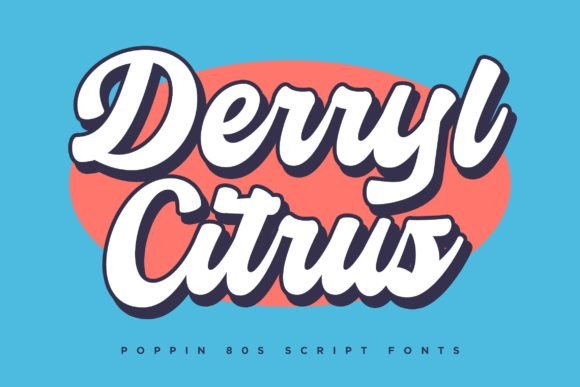
Derryl Citrus Font: The Ultimate 80s Vibe for Your Visual Time Machine
Are you looking for a font that can transport your design back to the radical 80s? Look no further than the Derryl Citrus Font, a fresh and fun typeface that’s perfect for adding a vintage touch to your visual projects. In this article, we’ll explore the features and benefits of Derryl Citrus, and show you how to use it to take your design to the next level.
The Retro Charm of Derryl Citrus
Derryl Citrus is a carefully crafted font that embodies the spirit of the 80s, with its bold, colorful, and playful aesthetic. The font’s design is inspired by classic 80s typography, with a modern twist that makes it perfect for contemporary design projects. Whether you’re creating a logo, branding materials, or social media content, Derryl Citrus is the perfect choice for adding a touch of nostalgia to your design.
Features of Derryl Citrus Font
- Unique 80s Vibe: Derryl Citrus has a distinctive 80s feel that’s perfect for creating retro-inspired designs.
- Highly Versatile: The font is suitable for a wide range of design projects, from logos and branding to social media content and apparel.
- Easily Readable: Despite its bold and playful aesthetic, Derryl Citrus is highly legible, making it perfect for use in a variety of contexts.
- Extensive Character Set: The font includes a wide range of characters, ensuring that you have everything you need to create stunning designs.
Perfect for Vintage, Retro, and Classical Designs
Derryl Citrus is a font that’s deeply rooted in the aesthetics of the 80s, making it perfect for creating vintage, retro, and classical designs. Whether you’re looking to create a logo for a food and beverage brand, design a poster for a music festival, or craft a social media post that stands out from the crowd, Derryl Citrus has got you covered.
Use Derryl Citrus for:
- Vintage and Retro Designs: Create stunning vintage-inspired designs that transport your audience back to the 80s.
- Classical and Traditional Designs: Add a touch of elegance and sophistication to your designs with Derryl Citrus’s classic aesthetic.
- Sign Painting and Apparel: Use Derryl Citrus to create eye-catching sign painting and apparel designs that are sure to turn heads.
- Food and Beverages: Add a pop of color and fun to your food and beverage branding with Derryl Citrus.
- Social Media Content: Stand out on social media with Derryl Citrus’s bold and playful aesthetic.
- Logo and Branding: Create a lasting impression with Derryl Citrus’s unique and memorable design.
- Experiment with Colors: Derryl Citrus looks amazing in bright, bold colors, so don’t be afraid to get creative with your color palette.
- Play with Typography: Derryl Citrus has a range of typography options, so experiment with different styles and sizes to find the perfect look for your design.
- Add Texture and Patterns: Add an extra layer of depth to your design with texture and patterns that complement Derryl Citrus.
Derryl Citrus Font is a game-changer for designers looking to add a touch of 80s nostalgia to their work. With its unique vibe, versatility, and ease of use, Derryl Citrus is the perfect choice for a wide range of design projects. So why wait? Download Derryl Citrus today and start creating stunning designs that transport your audience back to the radical 80s!